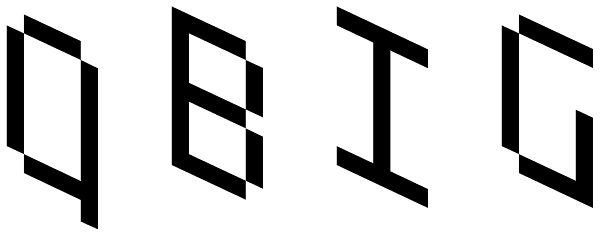
QBIG
Qbig was originally designed as a typeface for an amateur sci-fi movie in 2006. The basic style can be complemented with two types of shadows (Block and Superblock) which leads to 3D effect. The "Shadow" styles can also be used individually for...
QBIG Block
QBIG Super Block
QBIG